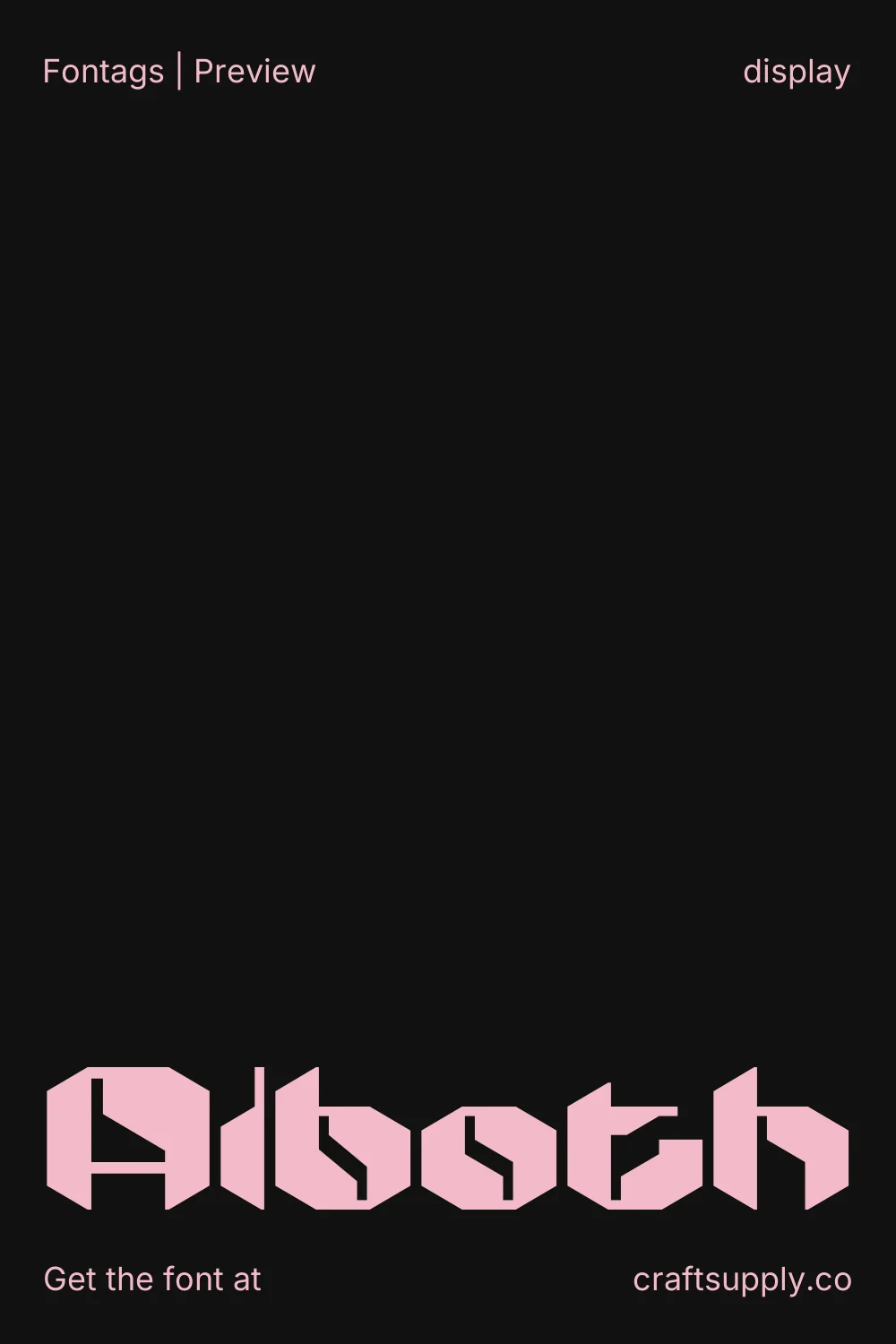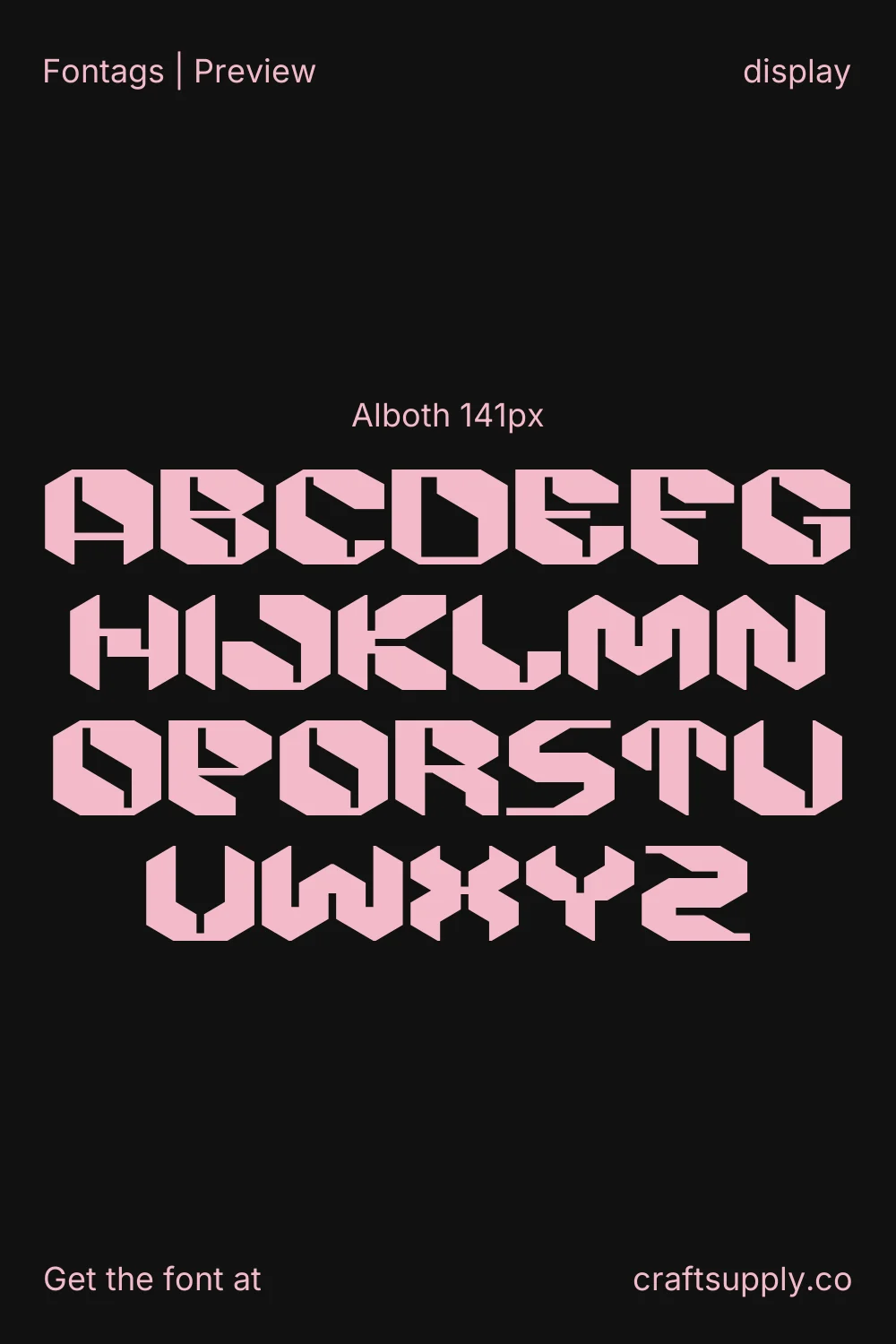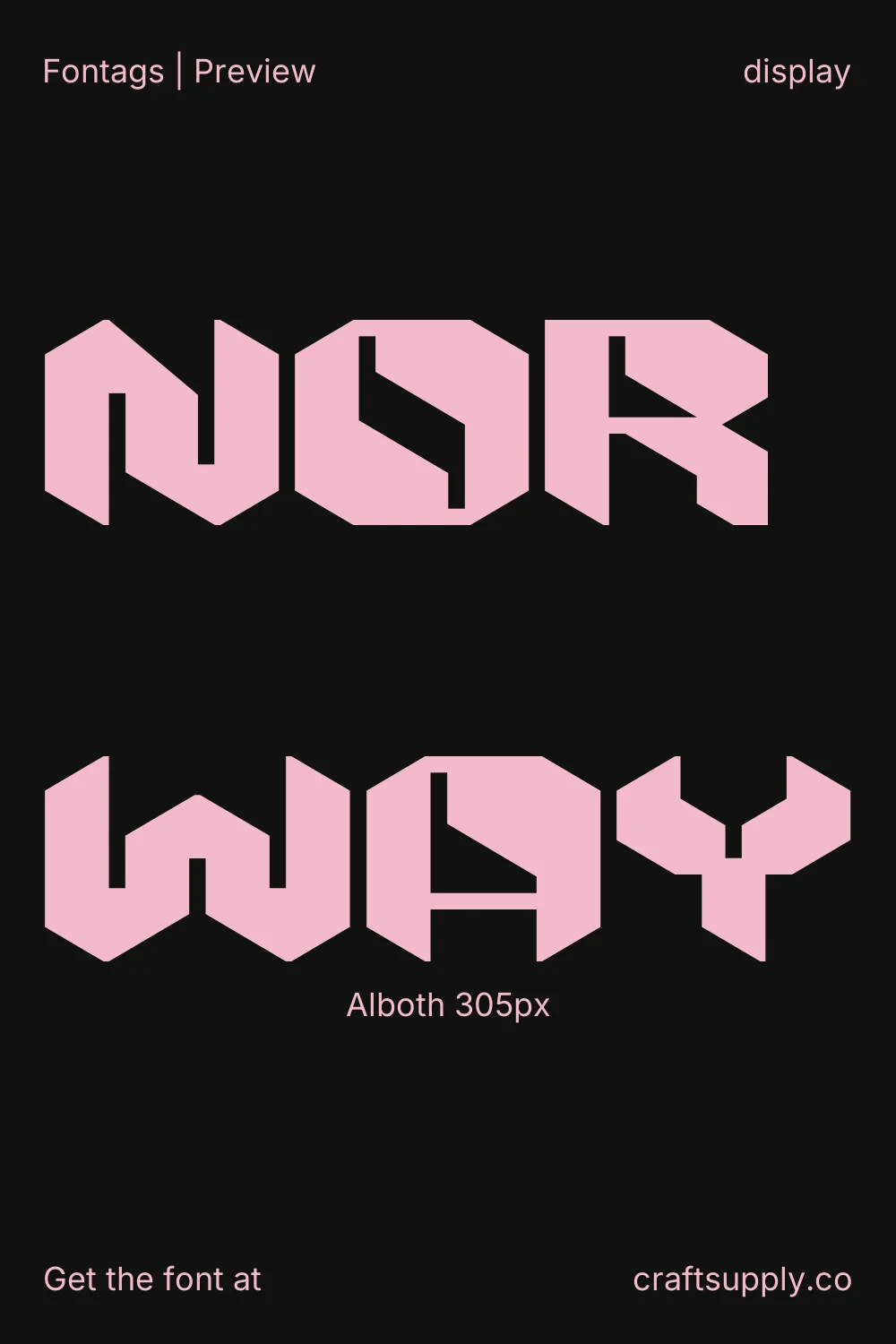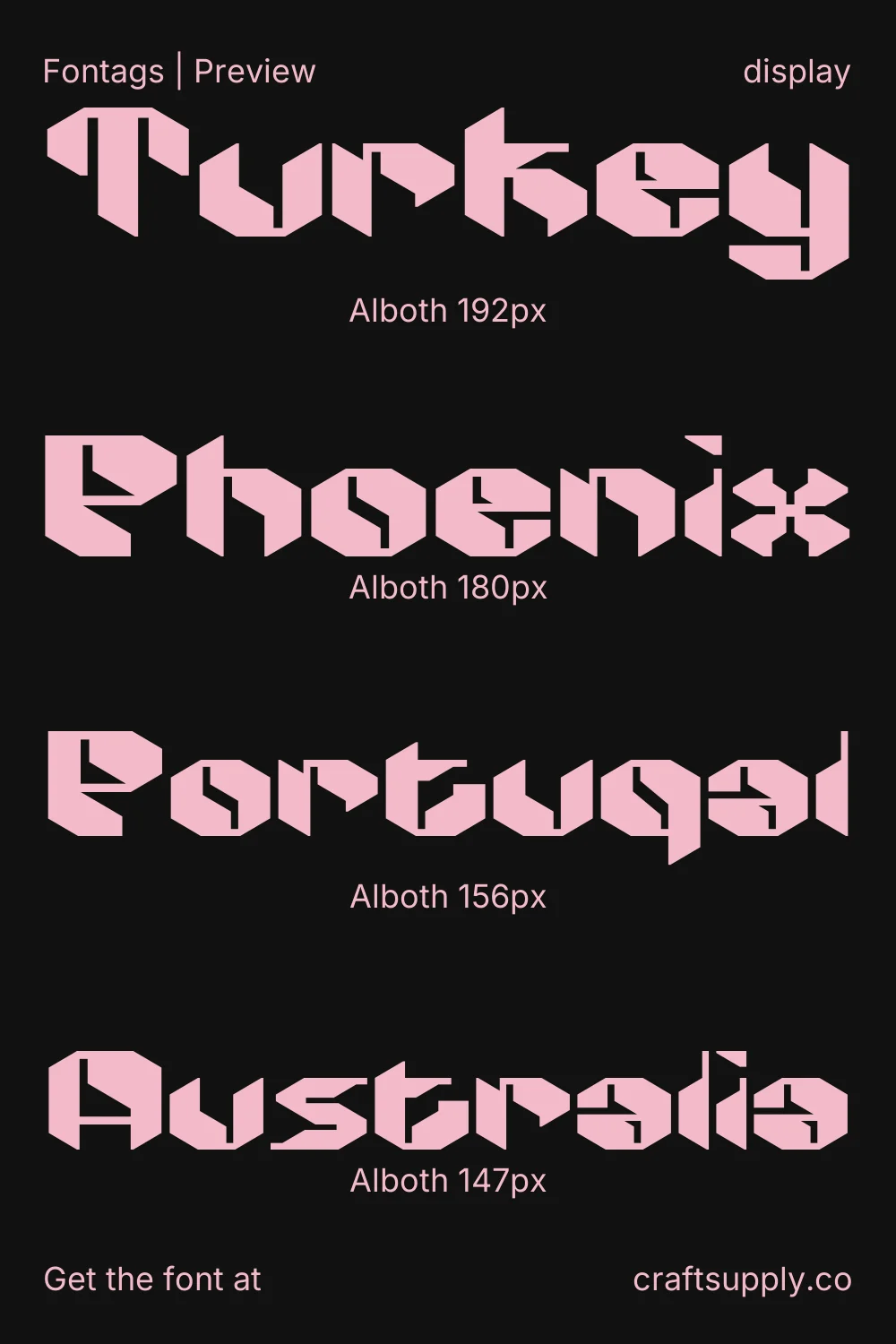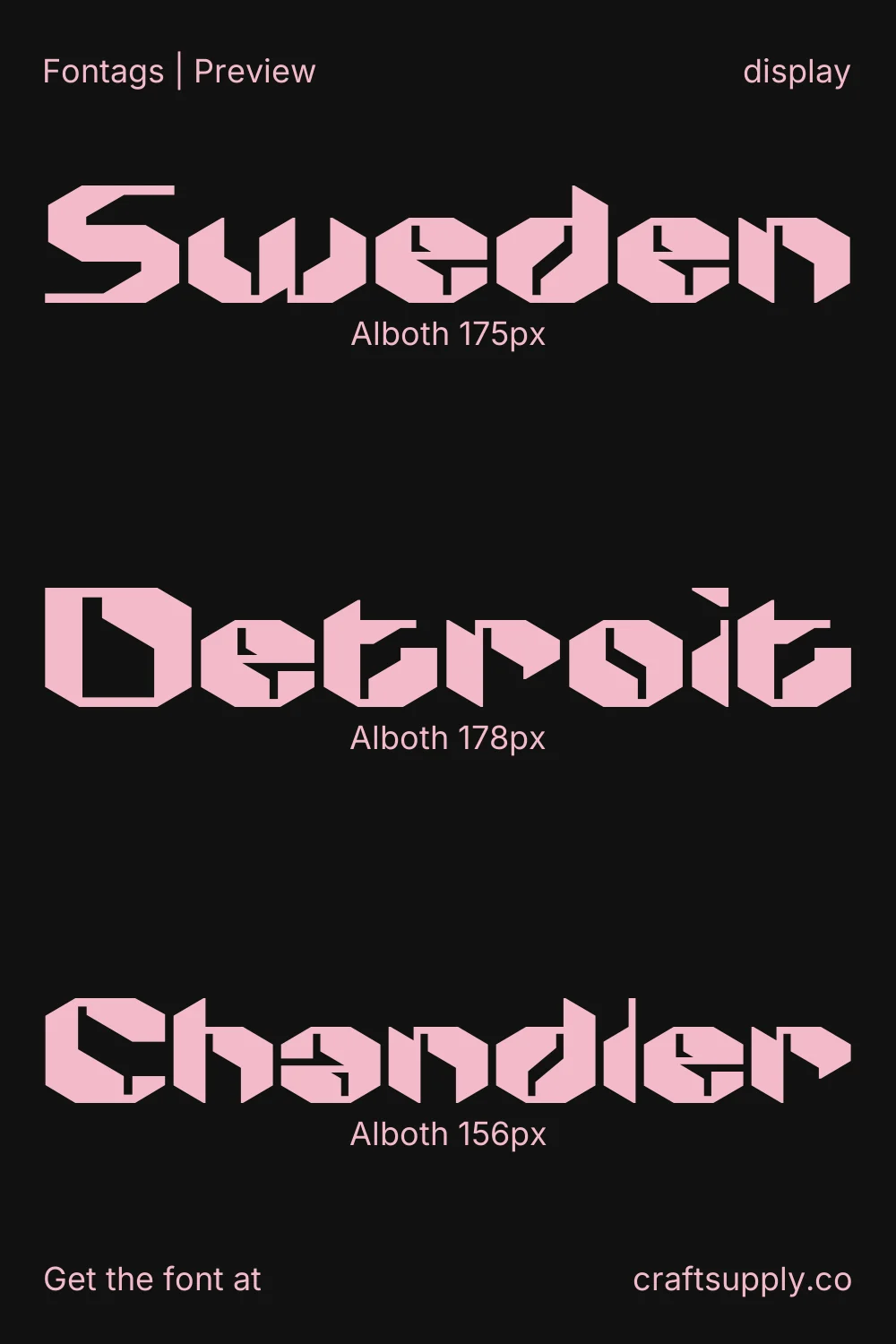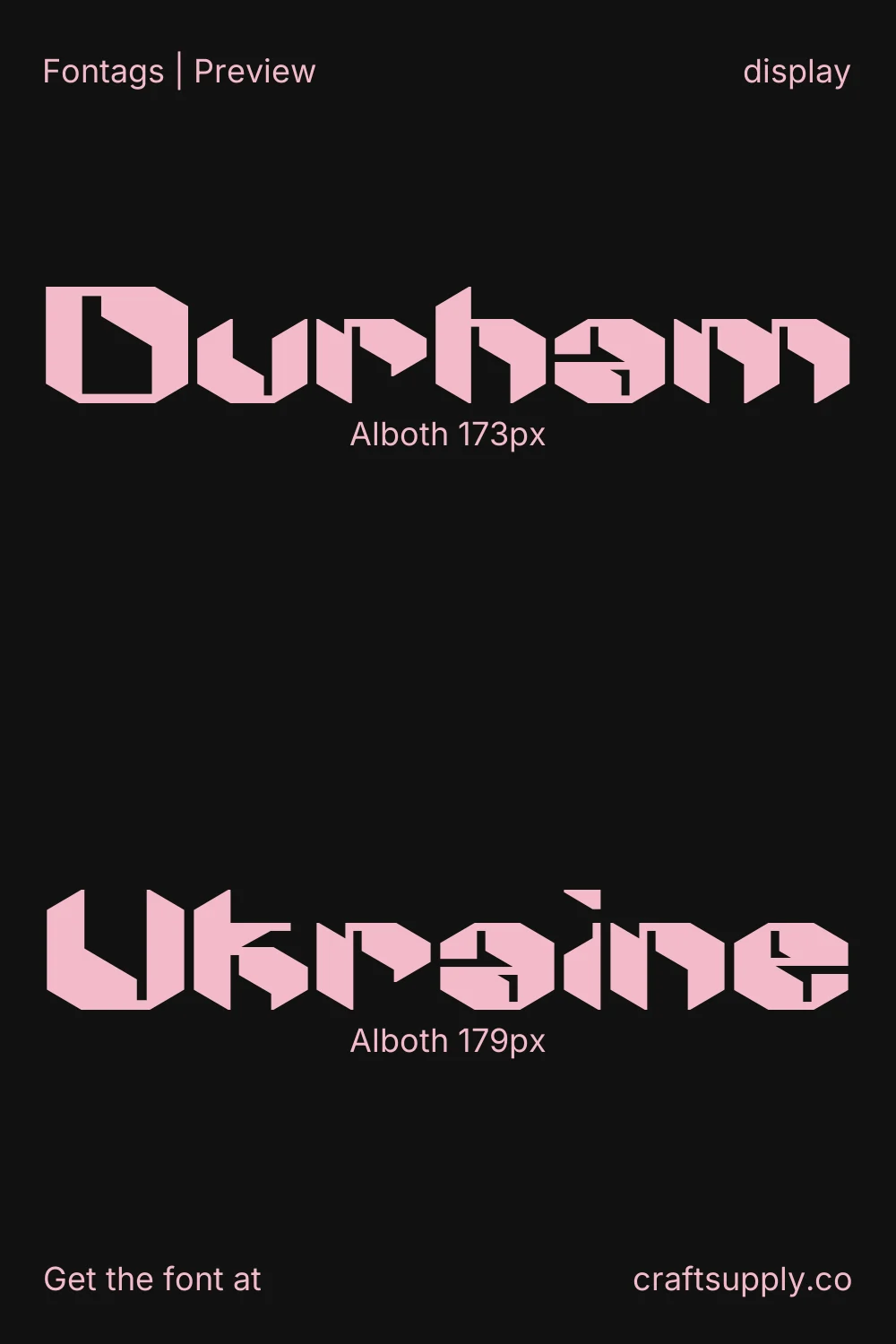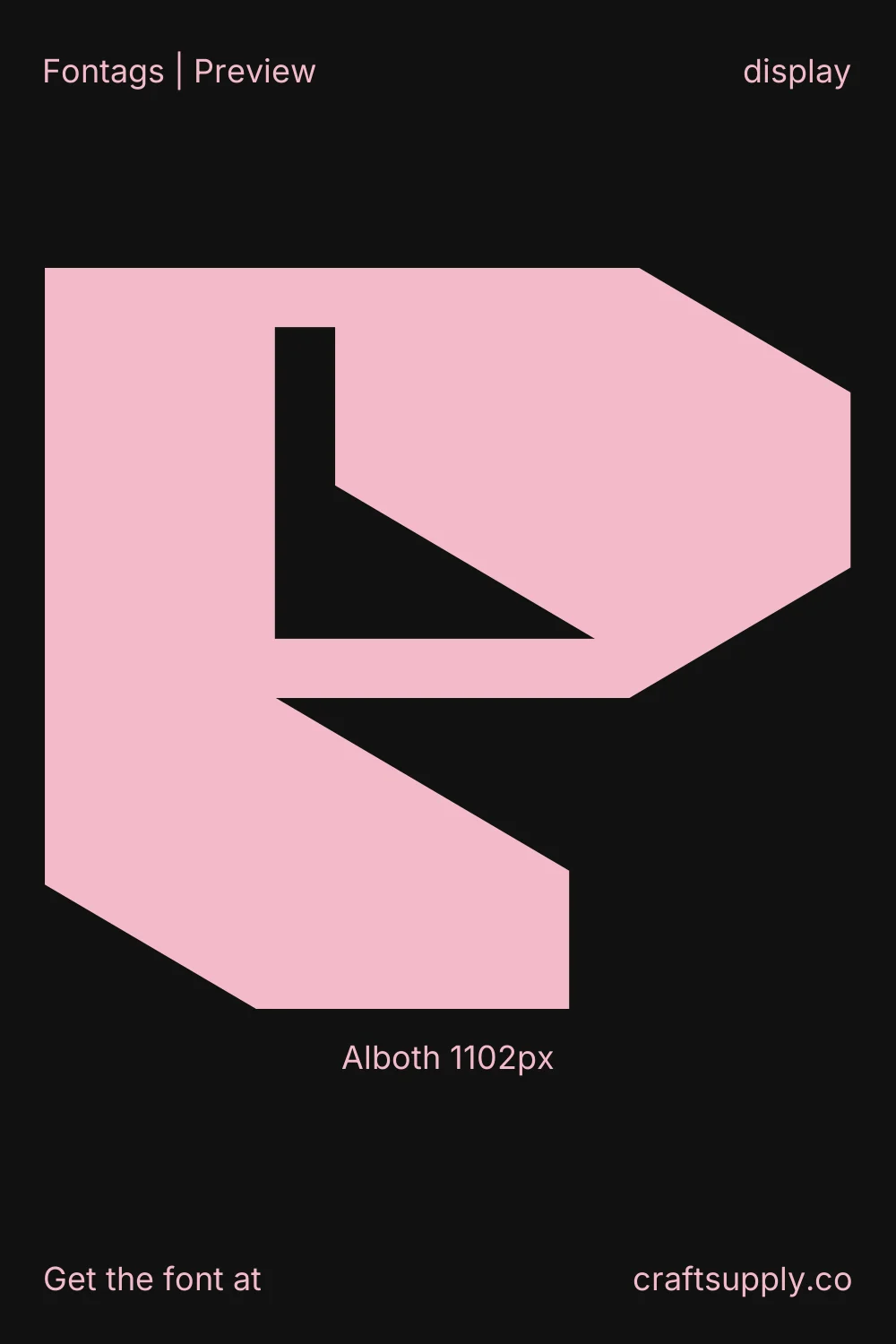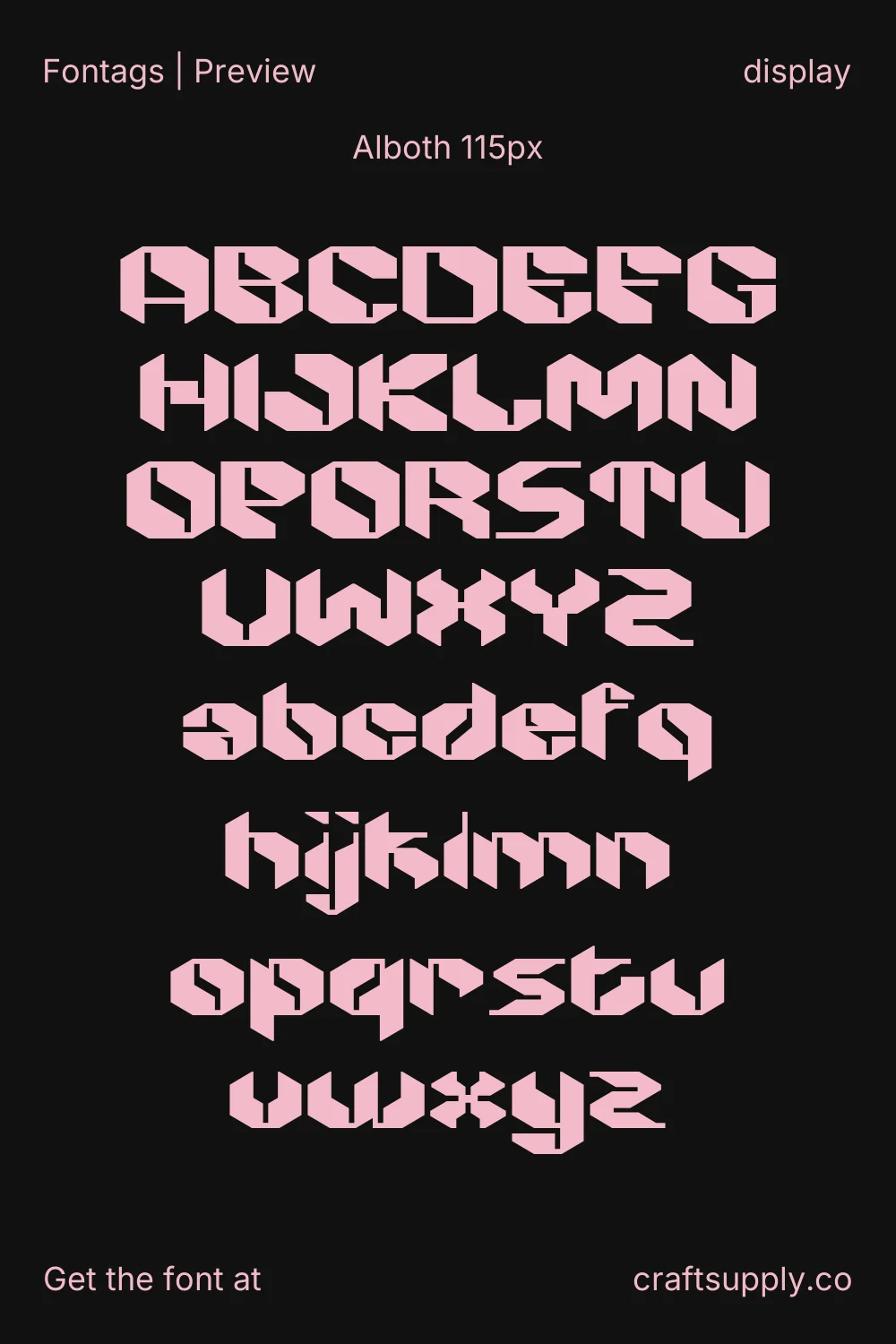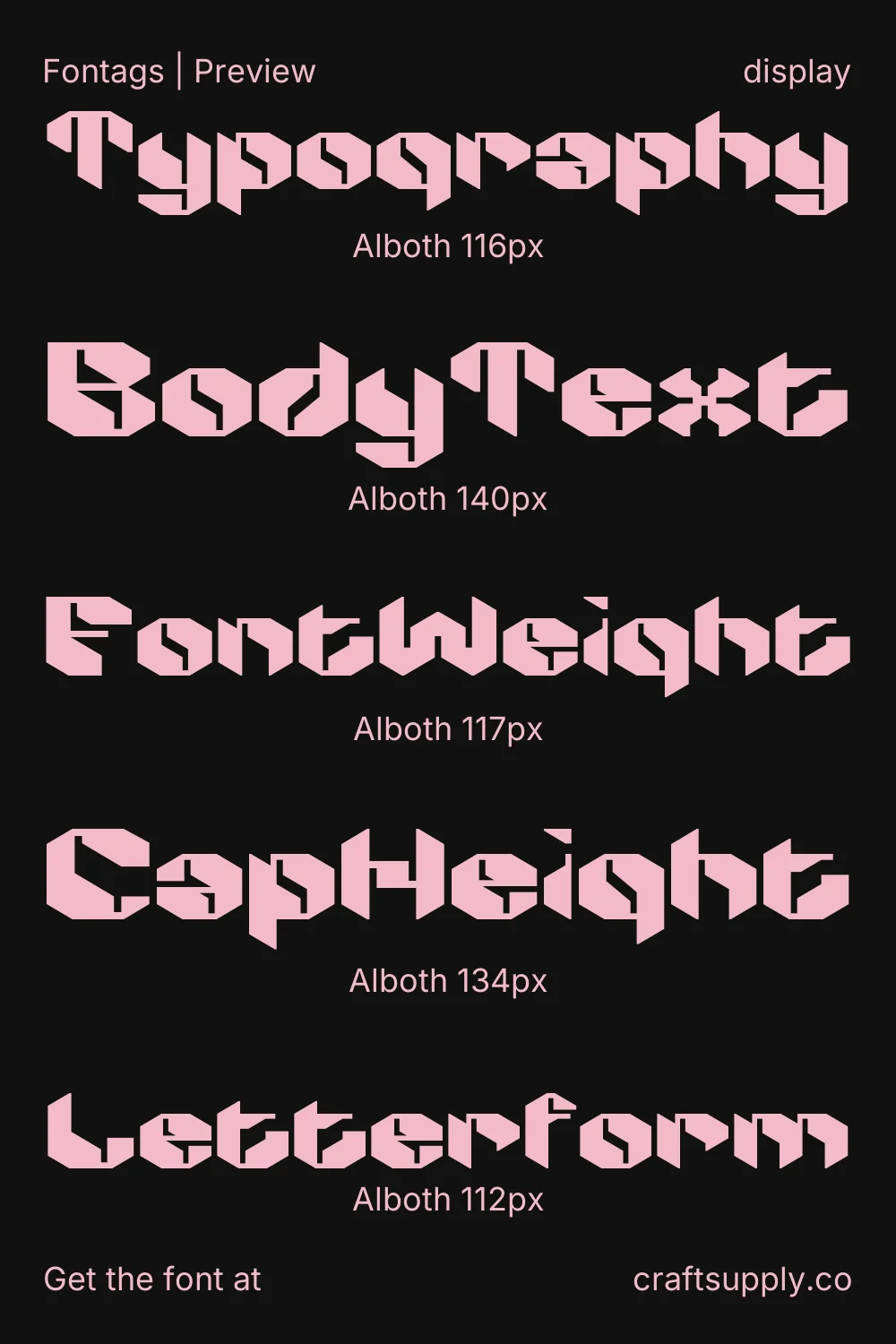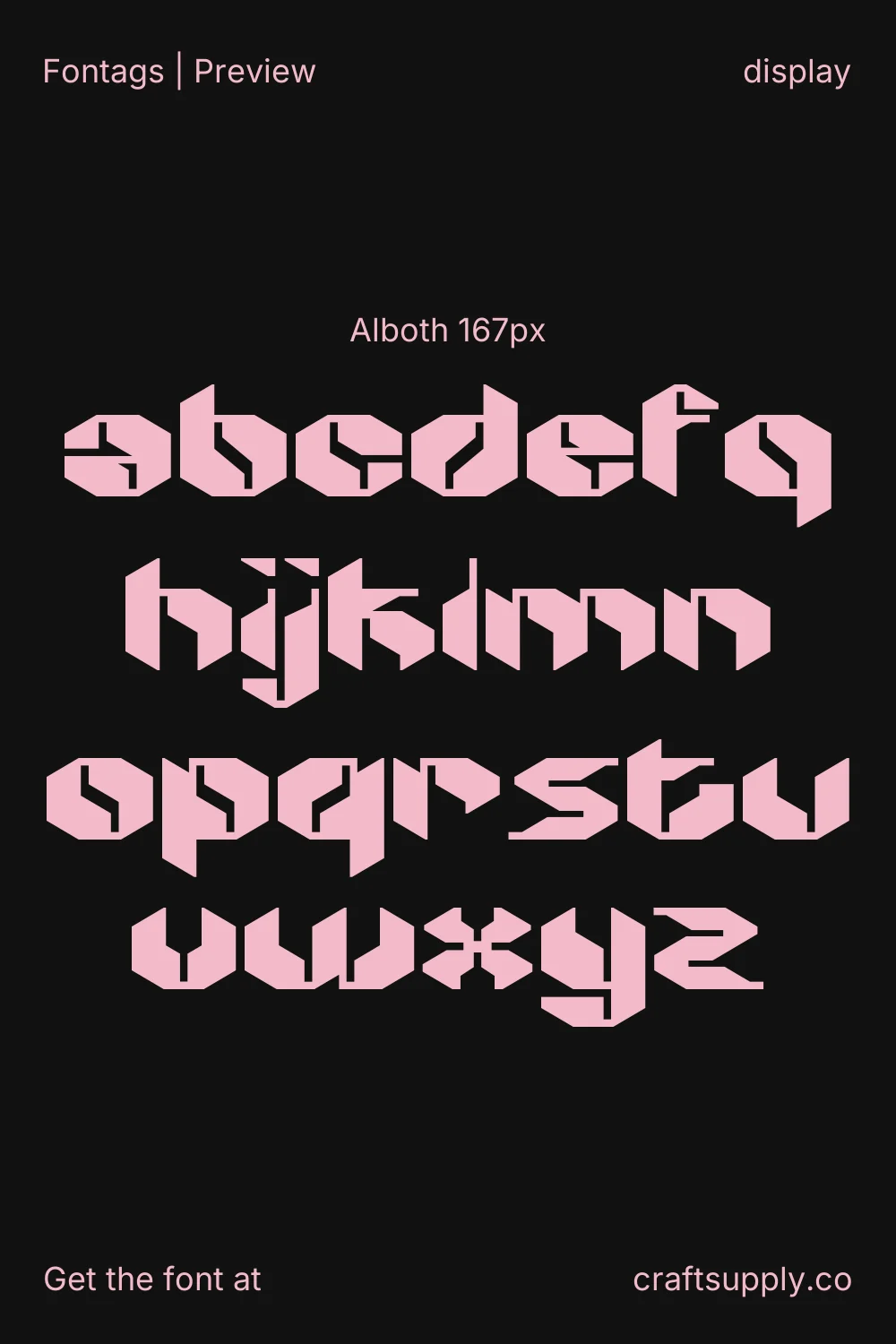
Alboth
Alboth is a futuristic display typeface characterized by sleek, bold forms and fluid motion. Designed for tech branding, sci-fi covers, and forward-thinking projects, it combines innovation with legibility.